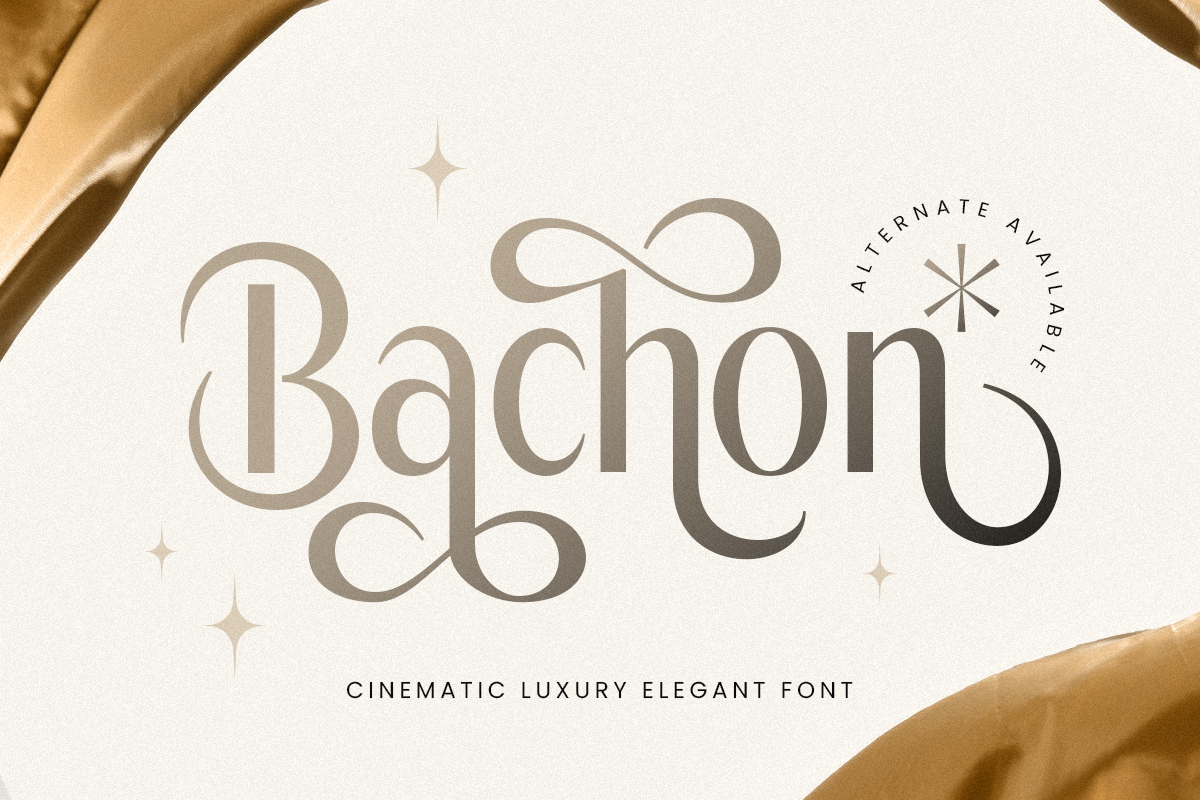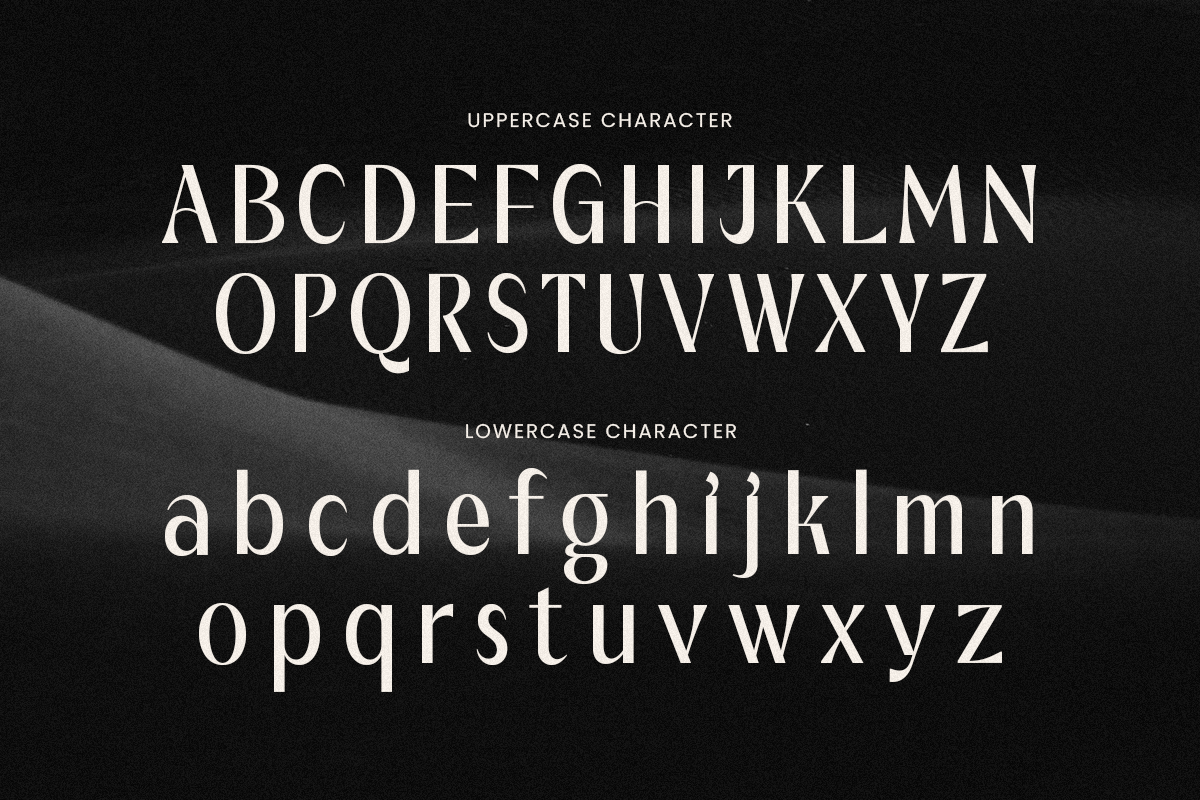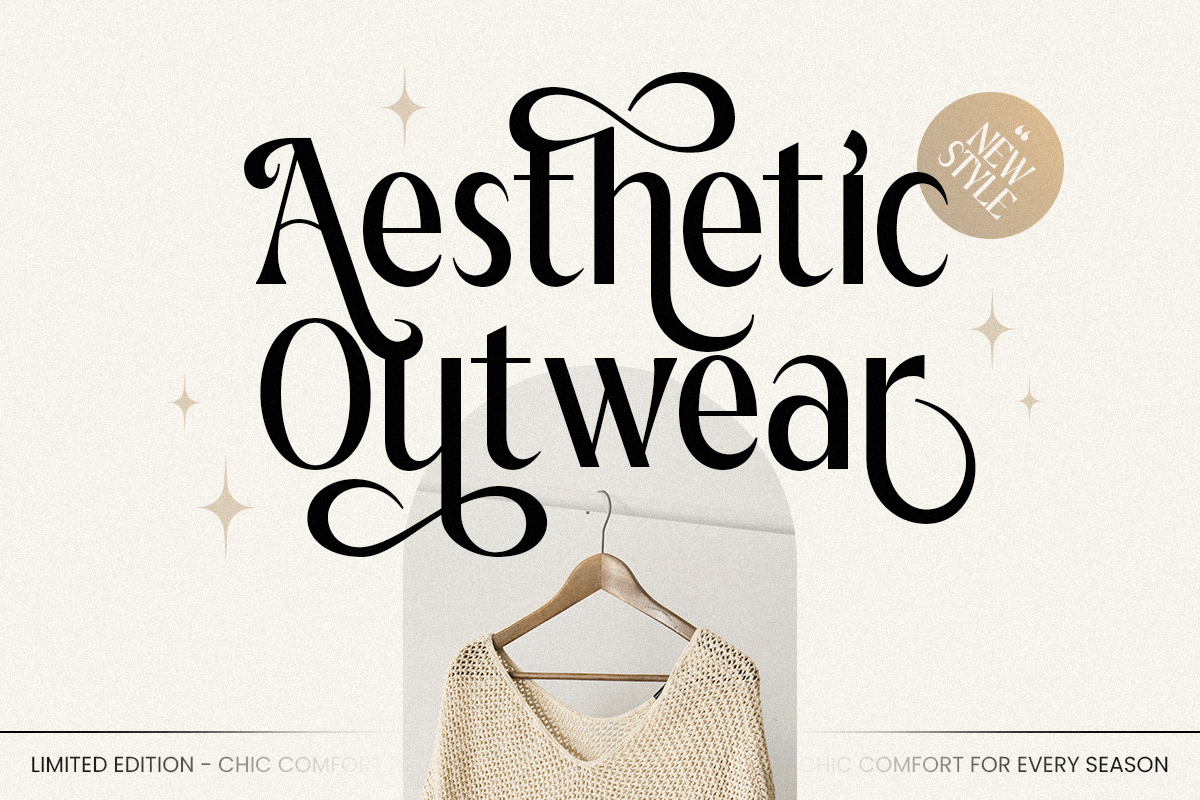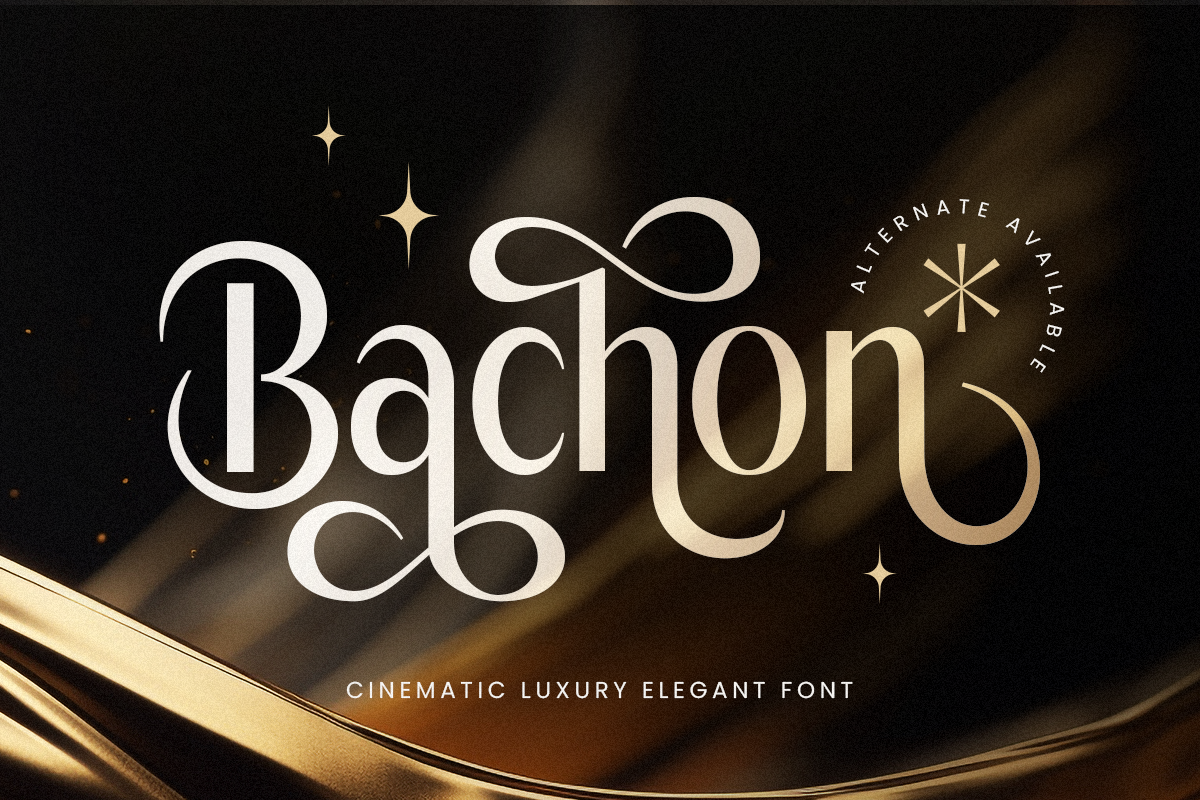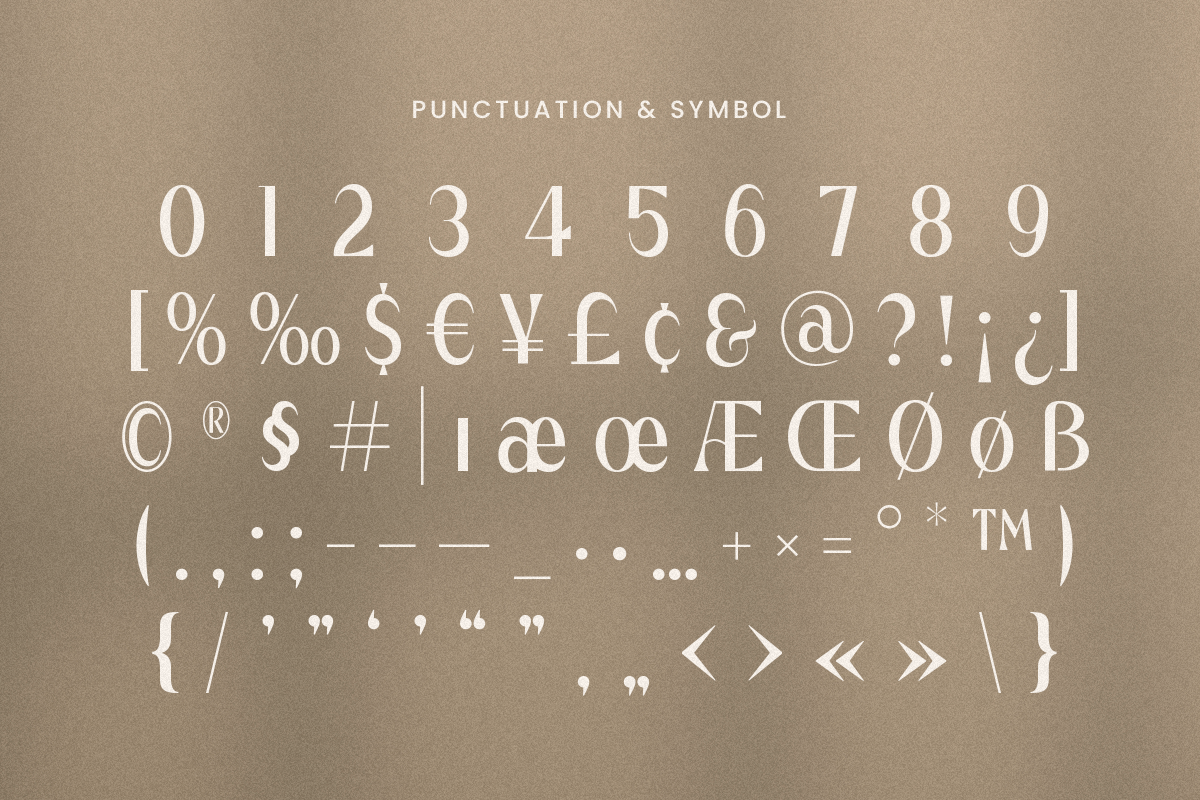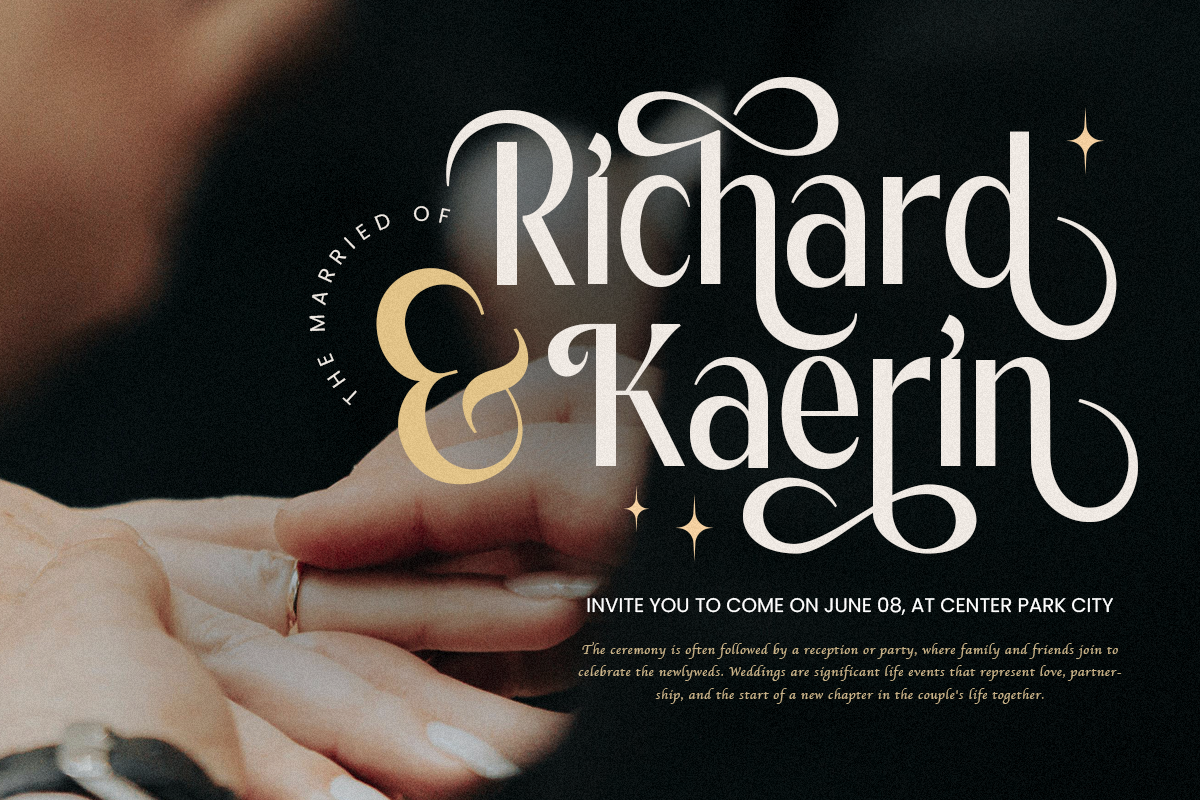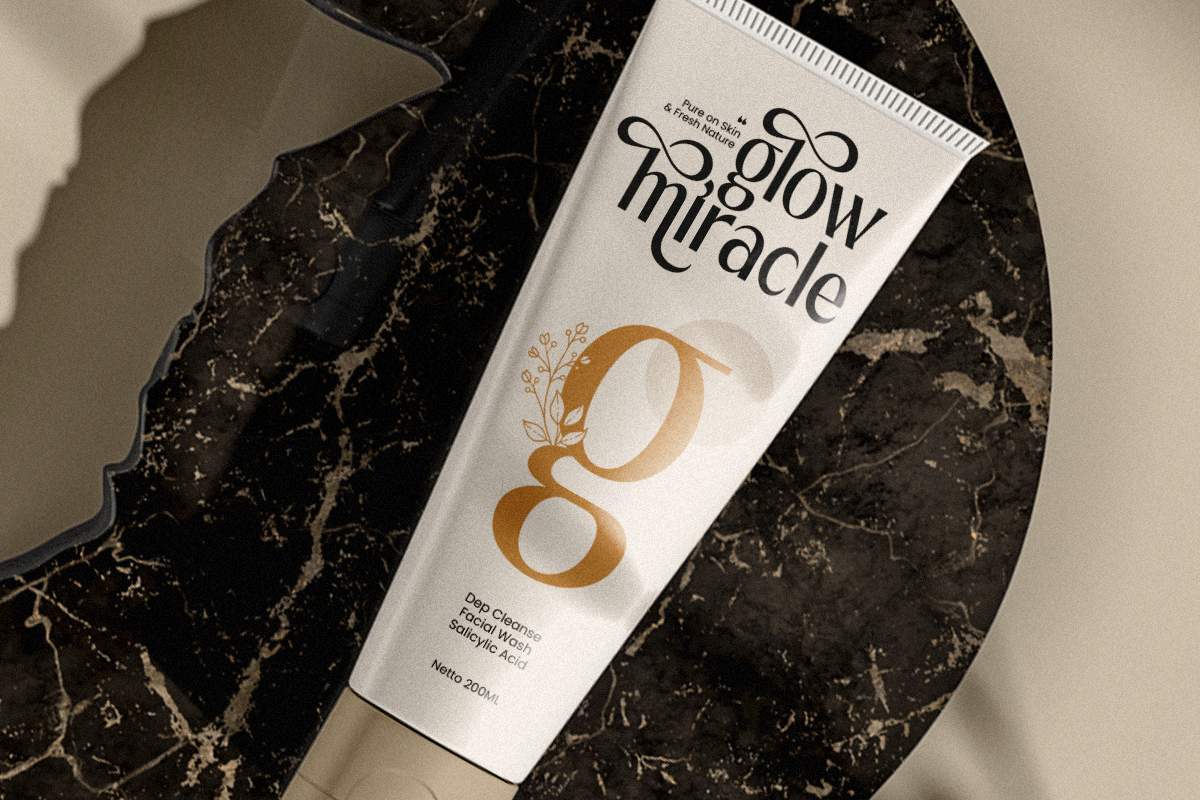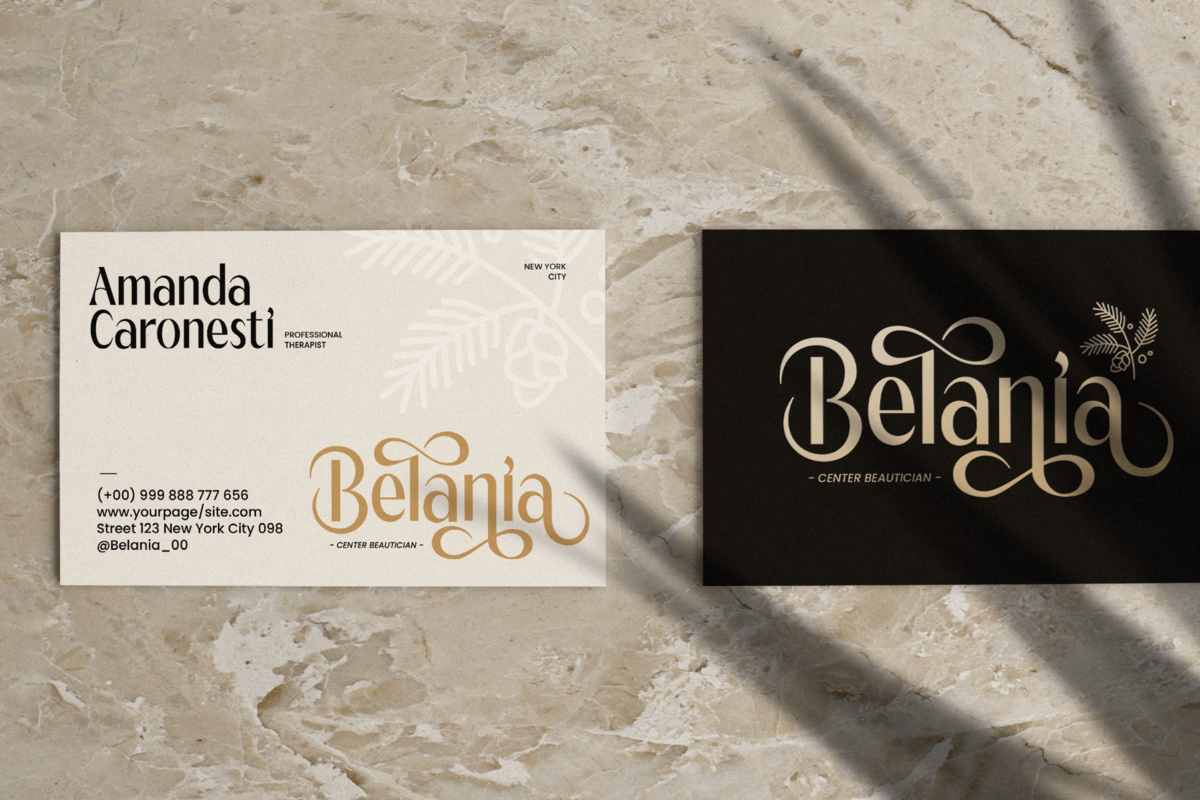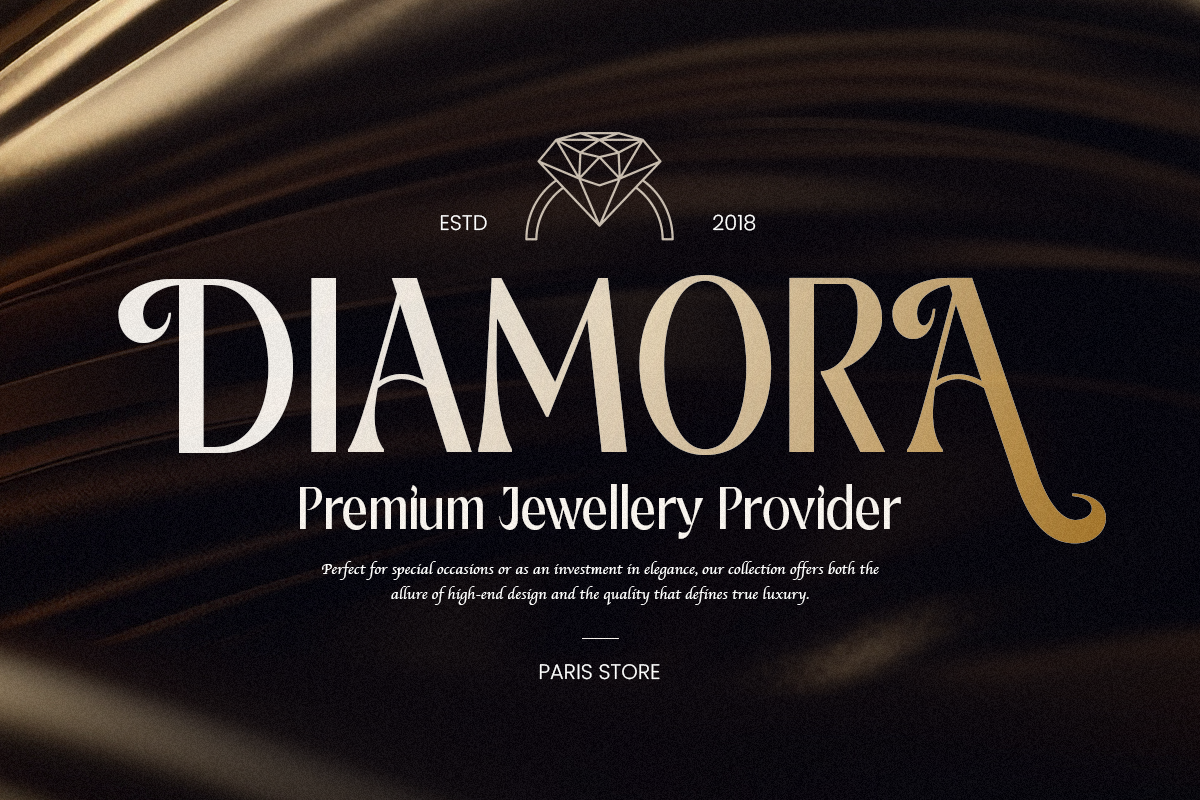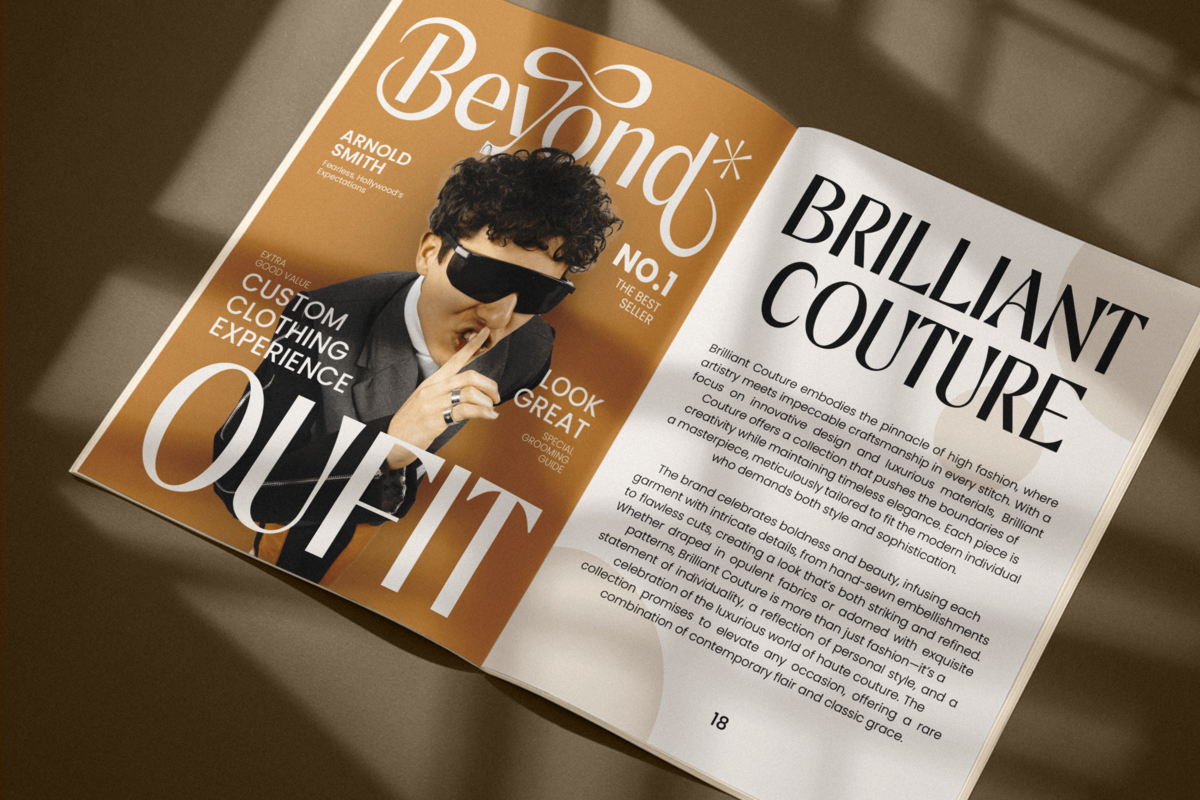
Bachon - Luxury Elegant Font
BACHON is a cinematic luxury elegant font designed to exude sophistication and class. With its graceful contrast, refined curves, and timeless presence, BACHON is the perfect typeface for luxury branding, film titles, high-end packaging, and fashion editorials.
Inspired by the golden age of cinema and elevated with modern elegance, each character in BACHON is drawn to command attention with poise. Whether you're designing a red-carpet poster, a premium logo, or a couture invitation, BACHON brings an unmistakable aura of prestige.
Its classic yet contemporary charm makes it highly versatile across upscale design projects — from screen to print, from fashion to fragrance.
BACHON – Cinematic Luxury Elegant Font Features
- Stylish serif letterforms with a cinematic presence
- Perfect for luxury branding, film titles, and fashion design
- Includes uppercase, lowercase, numerals & punctuation
- Beautiful ligatures and stylistic alternates
- Elegant for print and digital use alike
- OpenType features for advanced typographic styling
Make every word a statement of luxury with BACHON – where cinematic flair meets timeless elegance. 🎬✨